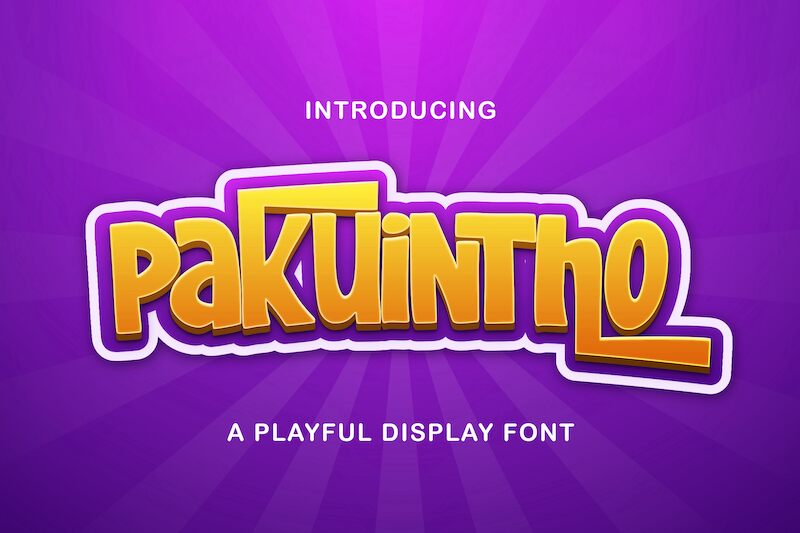
Pakuintho, a creation from the talented designers at StringLabs Creative Studio, exudes a delightful, playful charm. This bold, condensed display font boasts a unique, cartoon-inspired aesthetic that immediately captivates the eye. Its whimsical curves and playful strokes evoke a sense of energy and joy, making it an engaging choice for branding, packaging, and other creative projects where a touch of lighthearted flair is desired.
Pakuintho's versatility shines through, making it a suitable option for a wide range of design applications. Its bold, condensed nature lends itself well to eye-catching headings, attention-grabbing logos, and distinctive signage. Whether crafting a vibrant children's book cover or designing a fun social media campaign, Pakuintho's distinctive personality will undoubtedly leave a lasting impression on your audience.